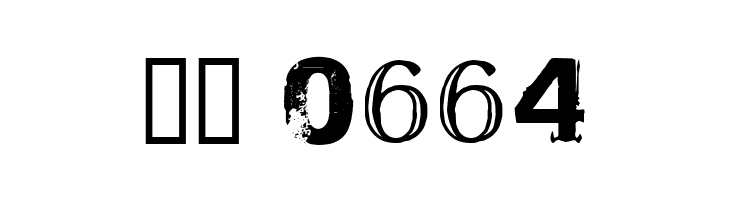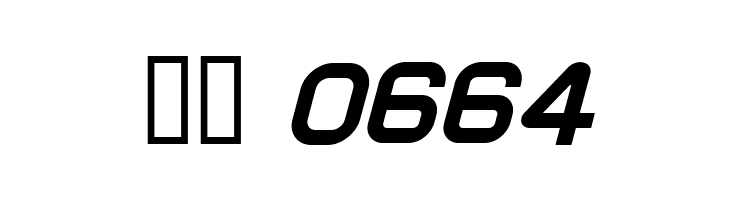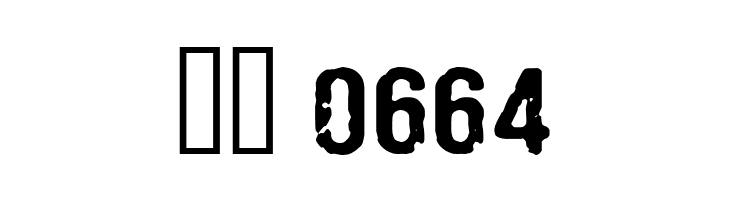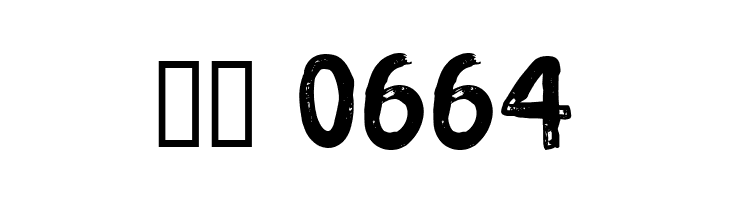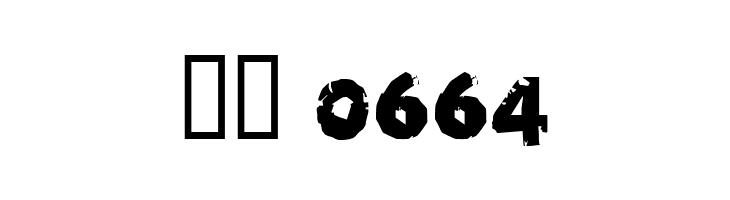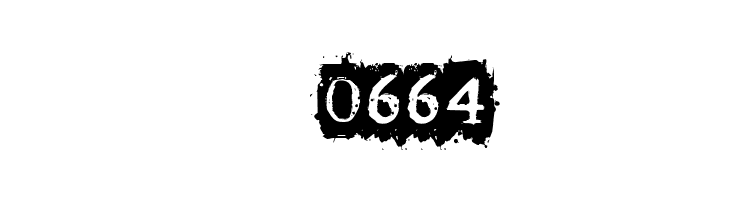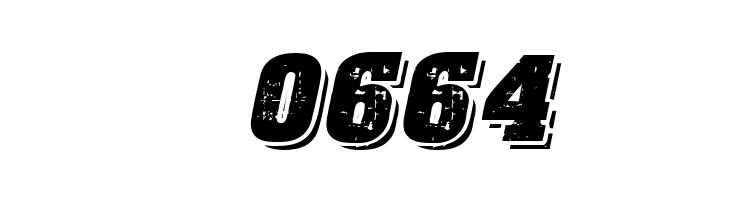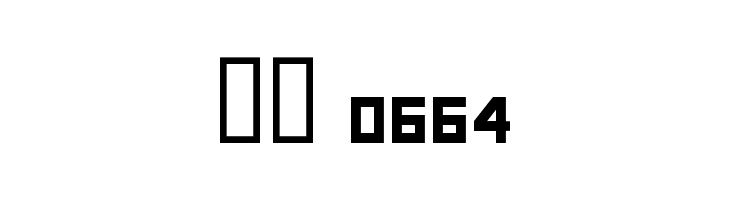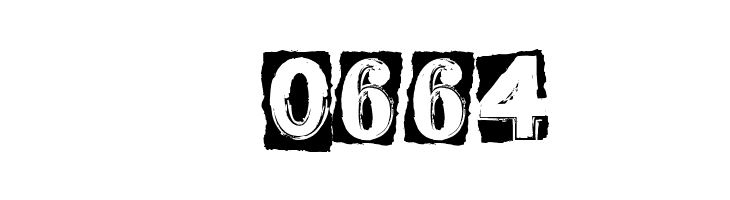
A decorative font with letters entwined in plant and flower motifs.
A bold, distressed font with a grunge, graffiti-inspired style.
A decorative font with characters resembling intricate tree branches.
A bold, distressed font with a punk-inspired, rebellious aesthetic.
A bold, distressed font with a grunge, punk aesthetic.
A bold, distressed font with a grunge aesthetic, perfect for impactful designs.
A bold, distressed font with a gritty, urban aesthetic.
A bold, eclectic font with a punk rock aesthetic and distressed textures.
A bold, distressed font with a punk rock, hand-painted style.
A bold, industrial font with punk and cyborg influences.
A bold, punk-inspired font with spiky, irregular edges and high contrast.
A bold, brushstroke-style font with a dynamic and artistic appearance.
A vintage, typewriter-inspired serif font with bold, irregular strokes.
A bold, distressed font with a rugged, vintage appearance.
An intricate, ribbon-like decorative font with a whimsical and artistic style.
A bold, playful font with rounded edges and a hand-drawn feel.
A distressed, vintage-style font with a bold, rugged appearance.
A rugged, angular font with a chiseled stone appearance.
A playful, handwritten font with smooth curves and a dynamic style.
A distressed, textured font with a bold, vintage style.
A bold, geometric font with sharp, angular characters and a digital aesthetic.
A modern, bold, and slightly slanted font with a geometric structure.
An ornate and decorative script font with elegant, flowing lines and intricate swashes.
A playful, casual handwritten font with a school-like, dynamic feel.
A playful, hand-drawn font with a chalk-like texture and dynamic strokes.
A modern, rounded sans-serif font with a friendly and approachable style.
A bold, distressed font with a rugged, grunge aesthetic.
A bold, narrow font with tall characters and tight spacing, perfect for modern designs.
A playful, handwritten font with a modern and clean appearance.
A bold, playful font with a snow-capped, three-dimensional effect.